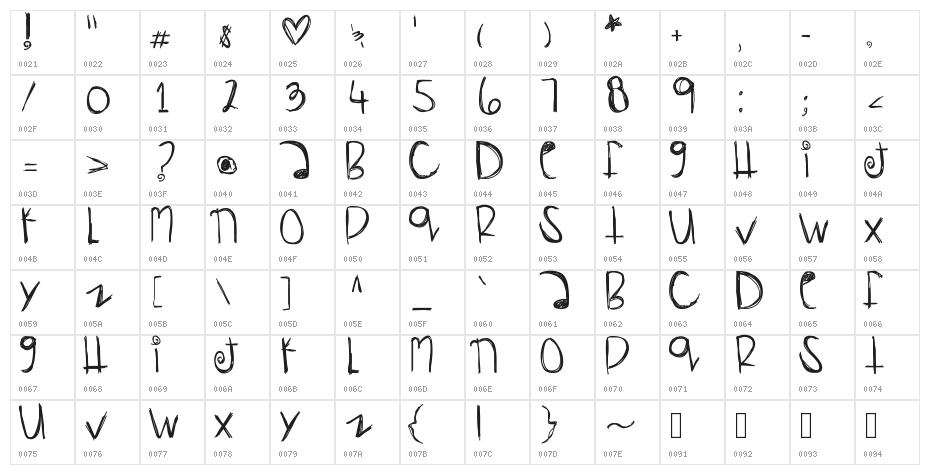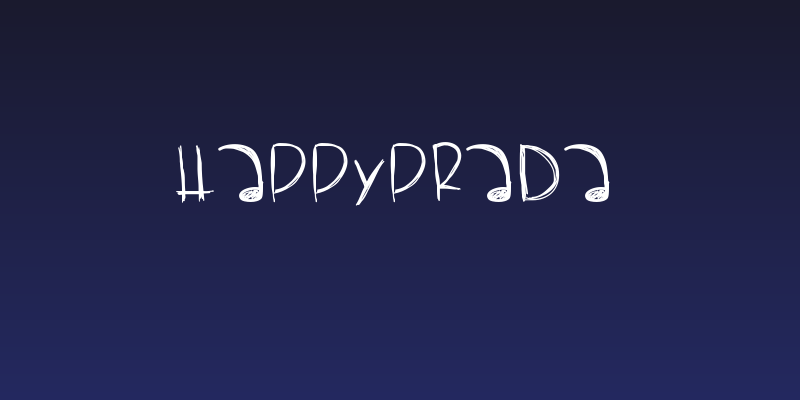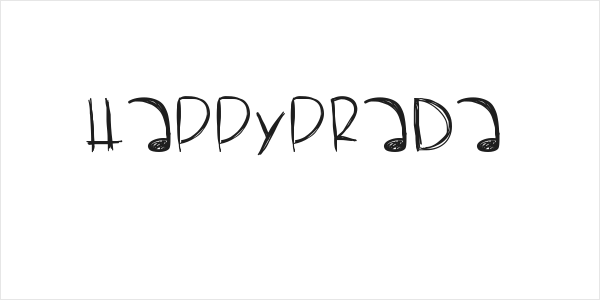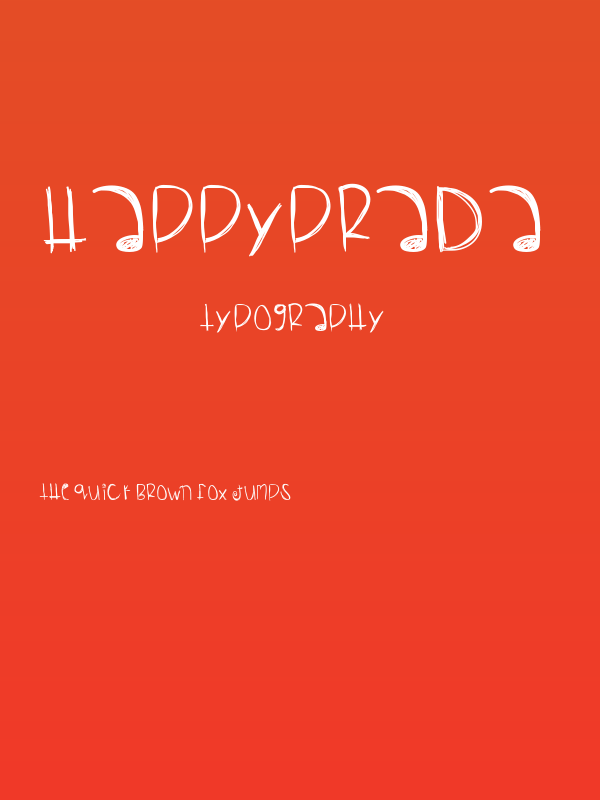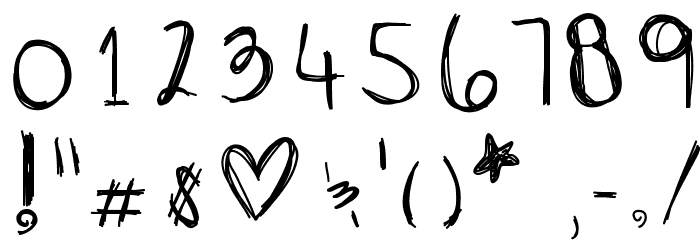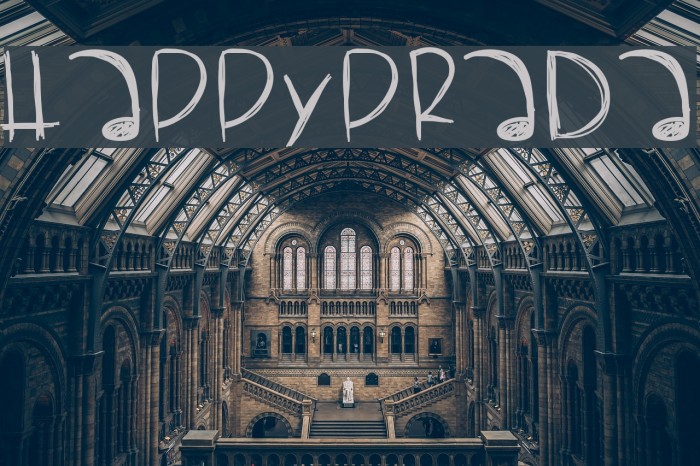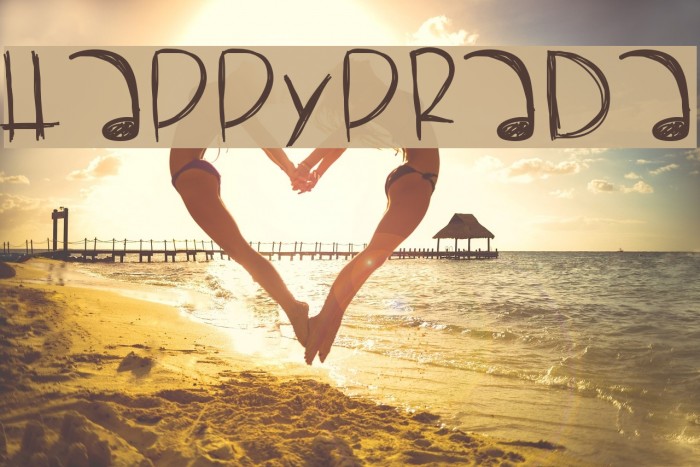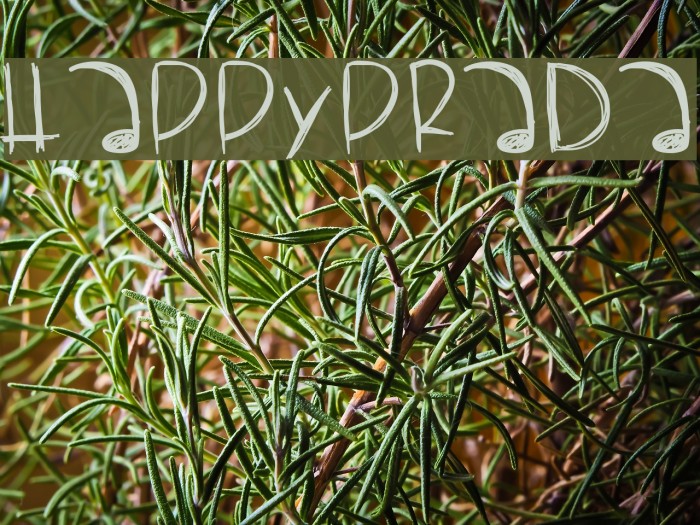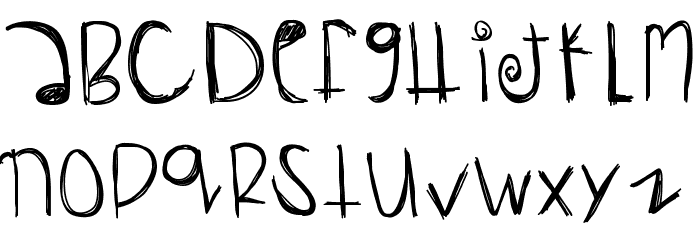
HappyPrada Font
HappyPrada Description
This font exudes a playful and whimsical charm, characterized by its hand-drawn, irregular strokes and quirky letterforms. Each character appears to have been crafted with a sense of spontaneity, featuring unique loops and swirls that add to its lively personality. The uppercase and lowercase letters maintain a consistent style, with varying stroke thickness that gives a dynamic, textured appearance. Numbers and special characters follow the same playful aesthetic, making them perfect for creative projects. The overall look is informal and artistic, ideal for capturing attention and conveying a sense of fun and creativity.
| Proposed Projects | Ideal for children's books, playful branding, creative posters, and artistic invitations. |